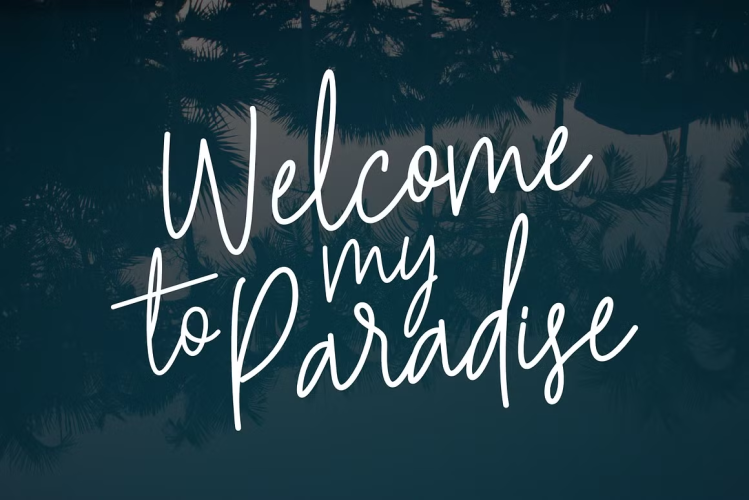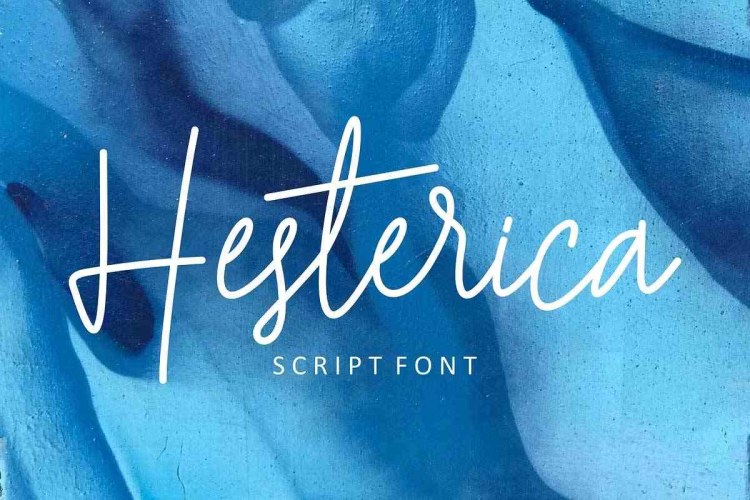
Hesterica Font
Hesterica is a clean, bouncy, beautiful font, simple and funny. Hesterica can be incorporated into many designs, including quotes, text, wedding invitations, and posters…
Hesterica is a clean, bouncy, beautiful font, simple and funny. Hesterica can be incorporated into many designs, including quotes, text, wedding invitations, and posters, and you can create custom cards to give to your friends and family.
Where Hesterica Font works best
Hesterica Font brings a personal, handwritten warmth to invitations, menus and place cards.
Craft brands — coffee, cosmetics, bakery — use scripts like Hesterica Font for signature-style logos and labels.
Pair Hesterica Font with a plain sans for quotes, stories and Pinterest pins that feel handmade.
What is Hesterica Font good for?